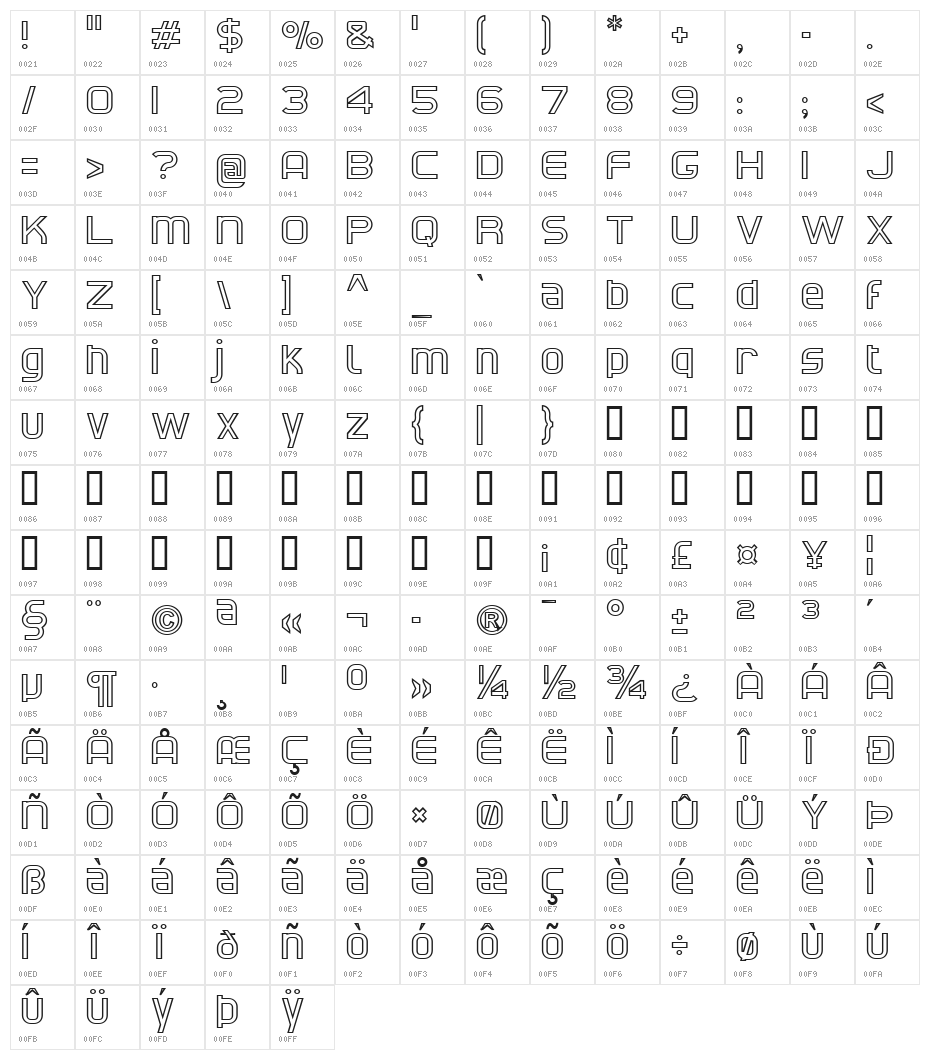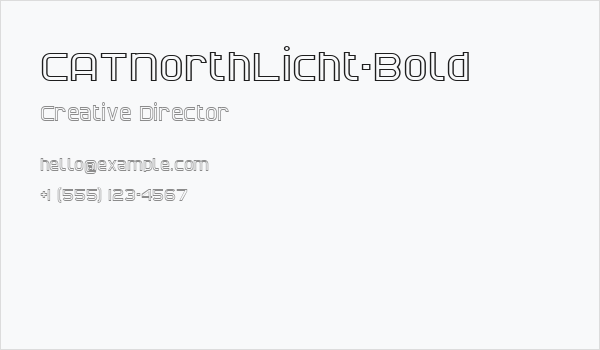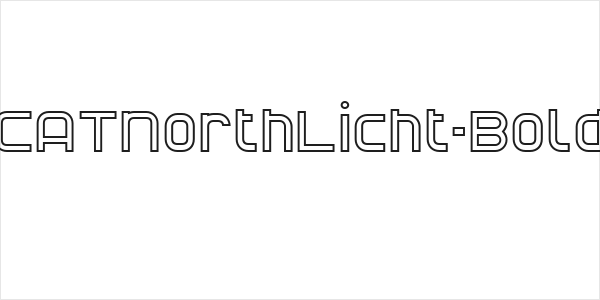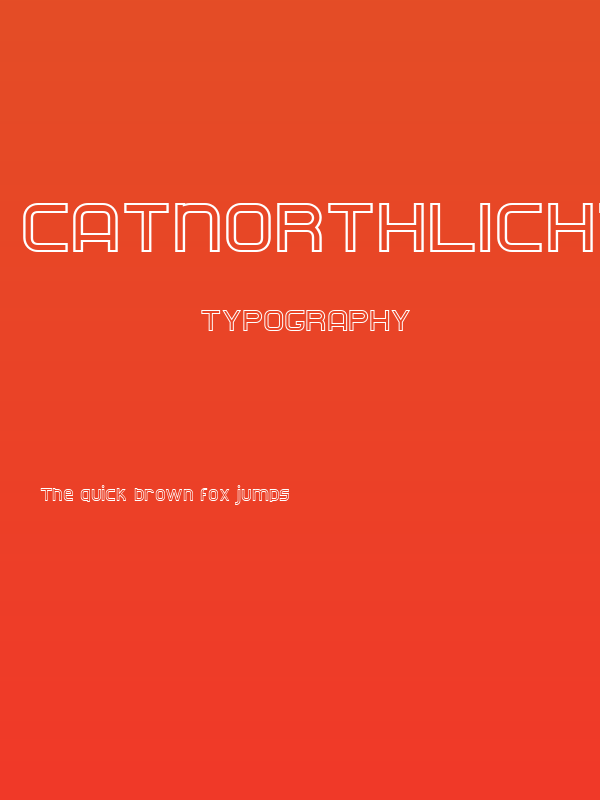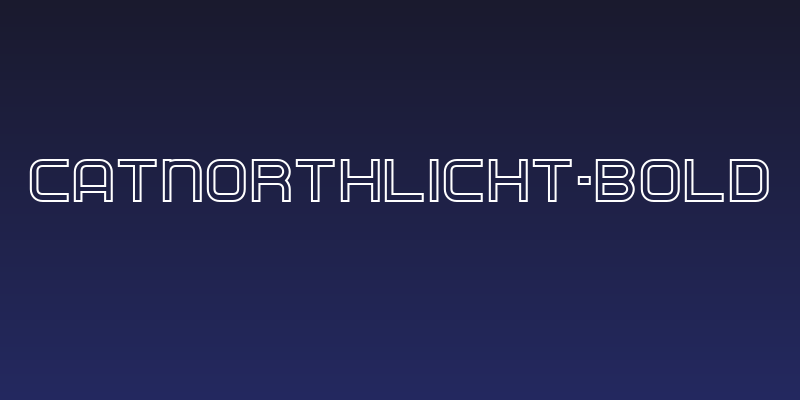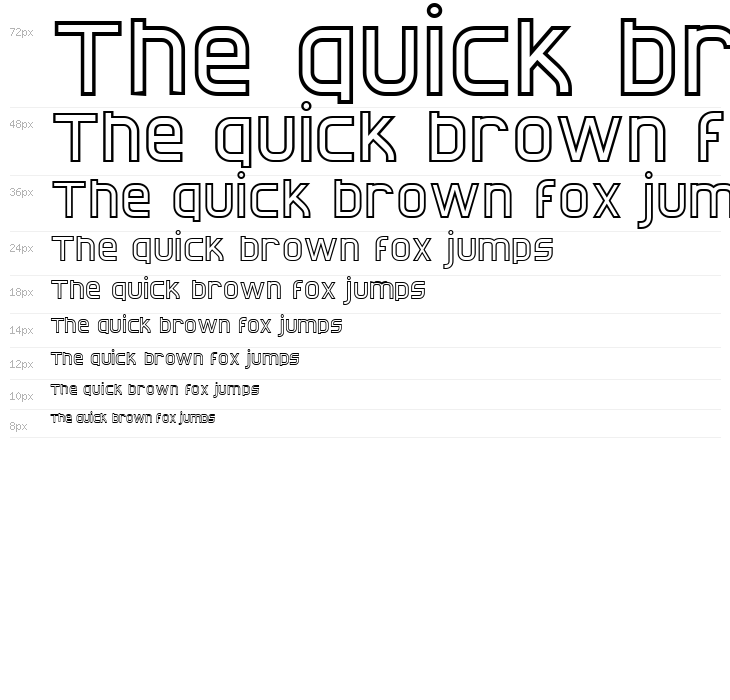
CATNorthLicht-Bold Font
CATNorthLicht-Bold Description
This font features a bold, geometric sans-serif style with a distinct outline effect. The characters are constructed with clean, straight lines and sharp angles, giving it a modern and technical appearance. The uppercase and lowercase letters maintain a consistent height, contributing to a uniform look. The numerals are equally bold and geometric, ensuring readability and visual impact. Special characters are designed with the same attention to detail, making them suitable for various applications. The overall design is both futuristic and minimalist, making it versatile for contemporary design projects.
| Proposed Projects | Ideal for technology branding, modern posters, digital interfaces, and futuristic designs. |